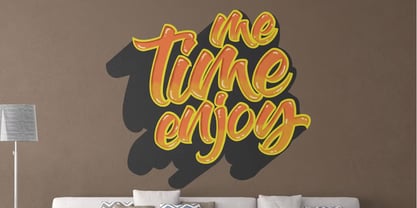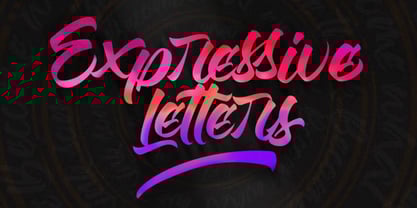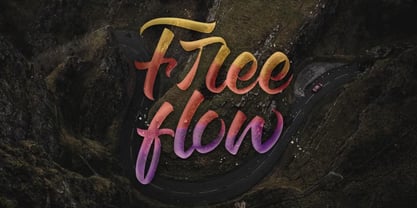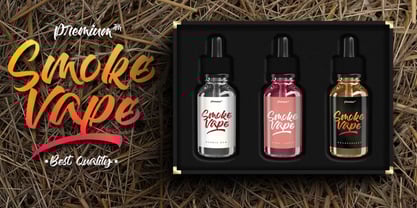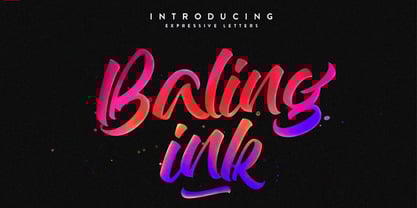
Baling Ink
by Maghrib Type
The Baling Ink Font Family was designed by Rizky Setyaludin and published by Maghrib Type. Baling Ink contains 1 styles.
Baling Ink type is expressive brush dan hand drawn typeface designed to help you create the look of stunning custom hand-lettering.
Baling Ink The typeface offers numerous combination possibilities between the basic glyph set and stylistic sets.The stylistic sets are alternate alphabets that you can access by using OpenType.
Designers: Rizky Setyaludin
Publisher: Maghrib Type
Foundry: Maghrib Type
Design Owner: Maghrib Type